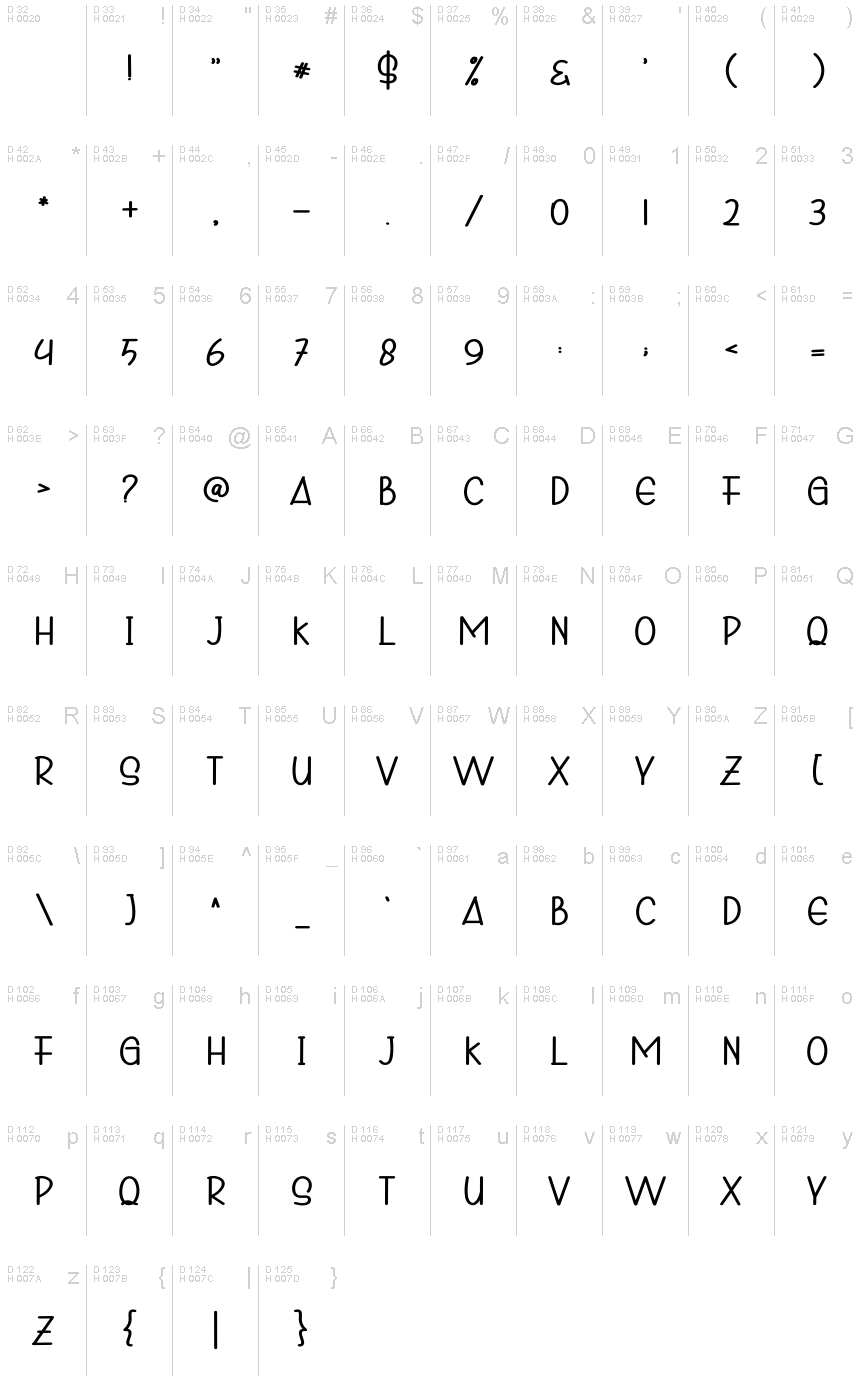
Animation
Animation, a captivating handwritten font crafted by Etik Fatimah, exudes a sense of playfulness and movement. With its bold, dynamic strokes and distinctive character shapes, this font immediately captures attention and evokes feelings of energy and liveliness. The organic, freeform nature of the lettering lends an artisanal, handcrafted aesthetic, making it an ideal choice for projects that require a touch of authenticity and personality.
Versatile in its applications, Animation thrives in a variety of design contexts, from branding and packaging to editorial layouts and social media content. Its expressive qualities make it well-suited for headlines, titles, and attention-grabbing elements, while its legibility ensures smooth reading experiences even in smaller text sizes. Whether used as a standalone statement or paired with complementary typefaces, Animation has the power to elevate the overall aesthetic and infuse a sense of playfulness into any design.